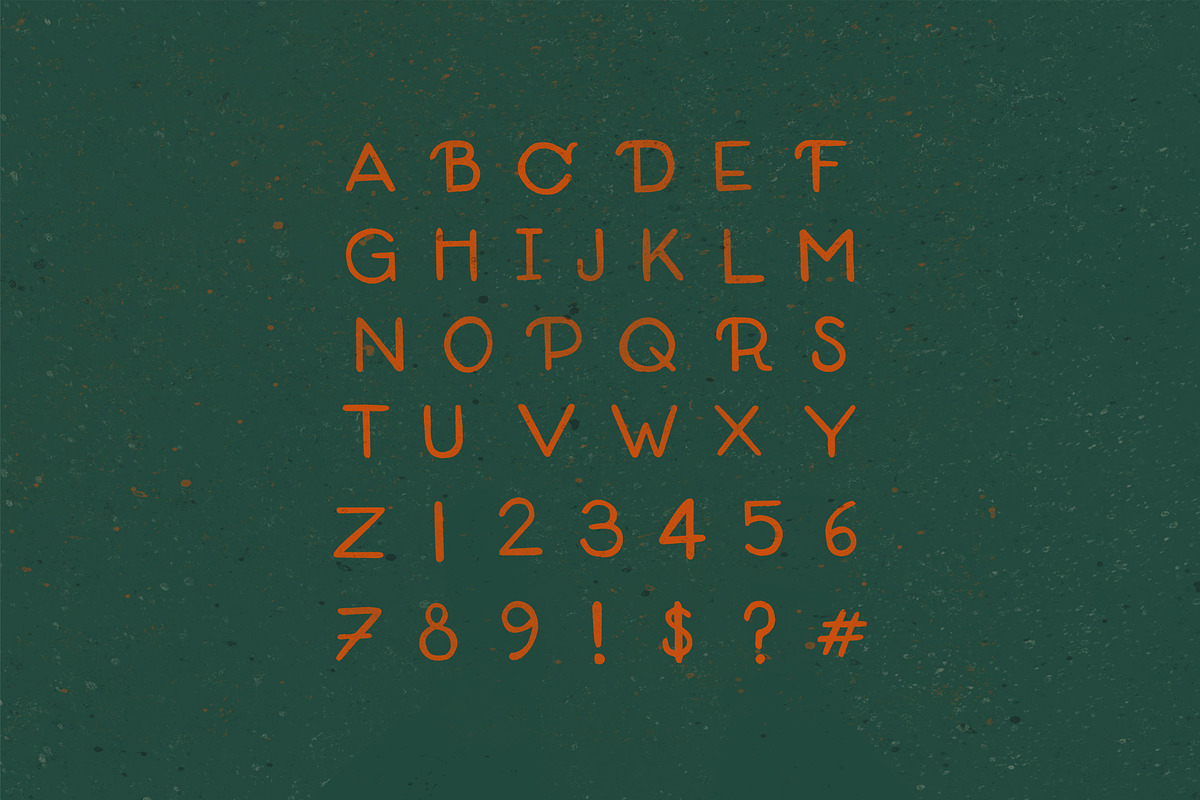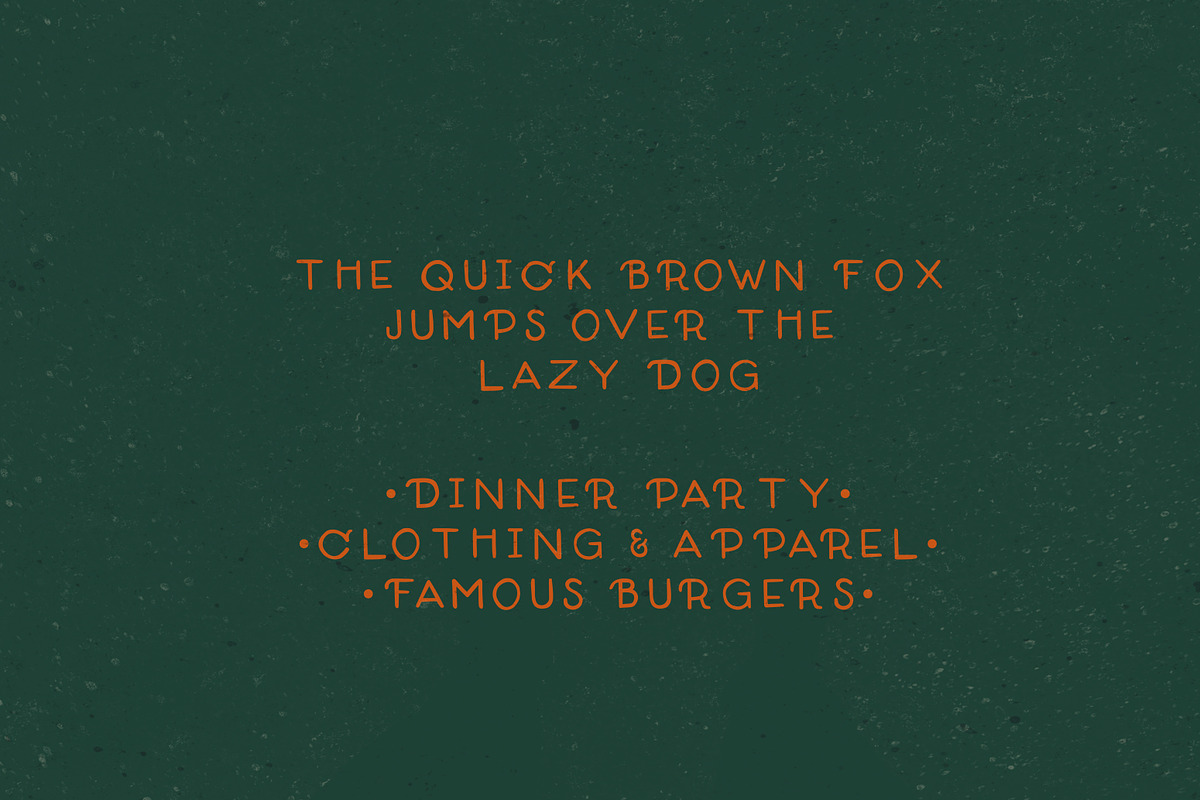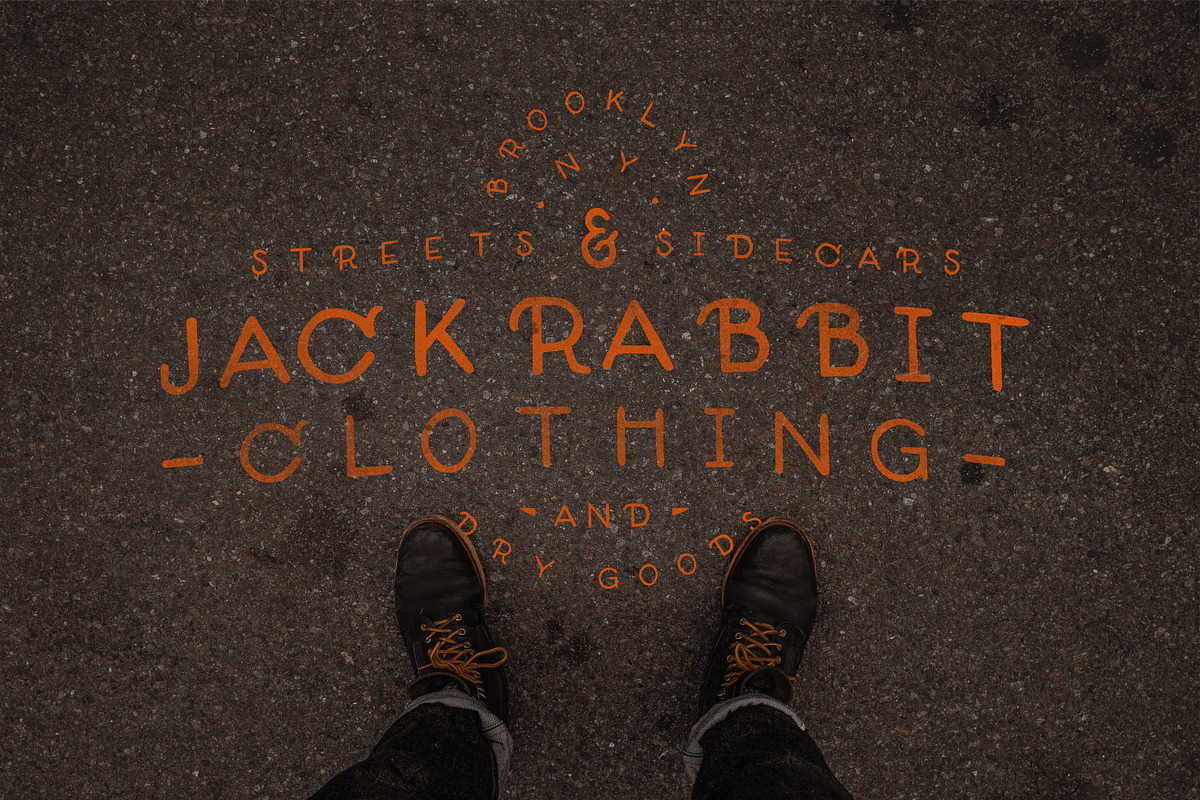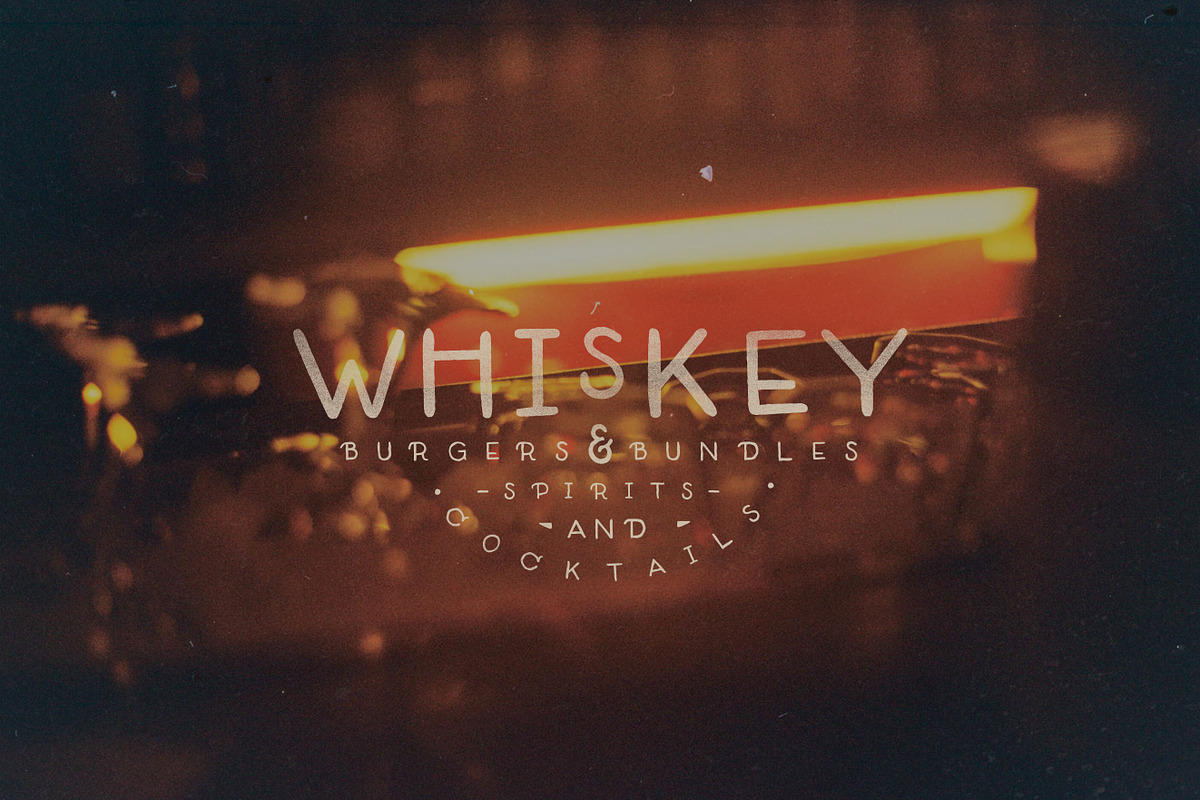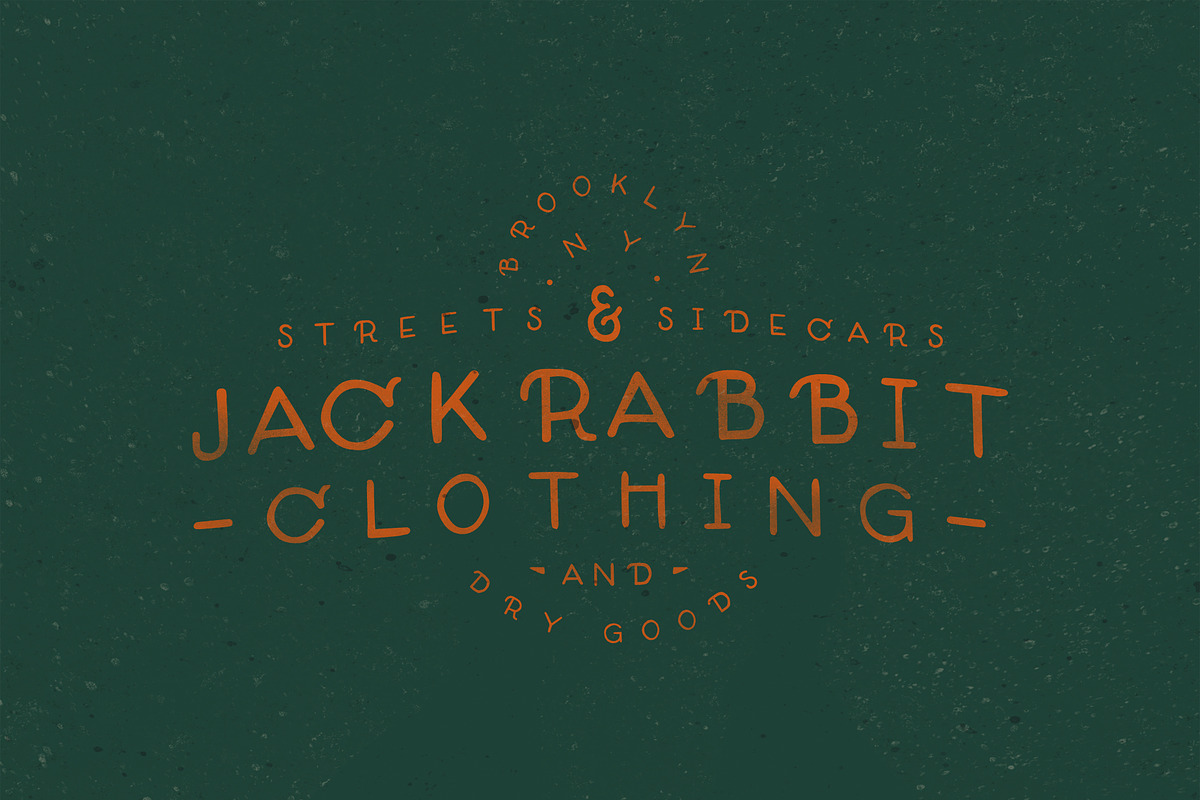
TASTY PASTE-HAND DRAWN FONT
TASTY PASTE-HAND DRAWN FONT by Zkiernan is a font selected for branding, posters, packaging, typography.
- Tasty Paste includes 26 capital letters, 10 numbers and 13 glyphs.
Why TASTY PASTE-HAND DRAWN FONT is worth a look
TASTY PASTE-HAND DRAWN FONT by Zkiernan fits naturally into Branding, posters, packaging, typography.